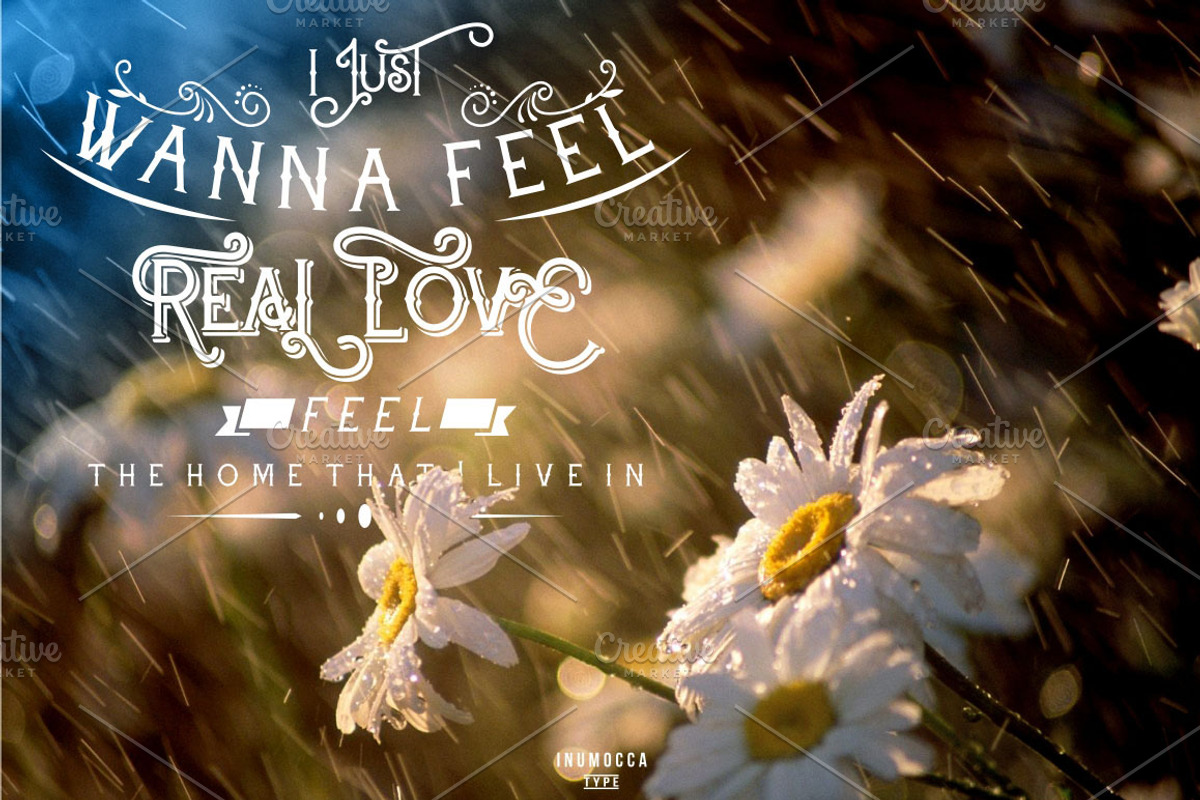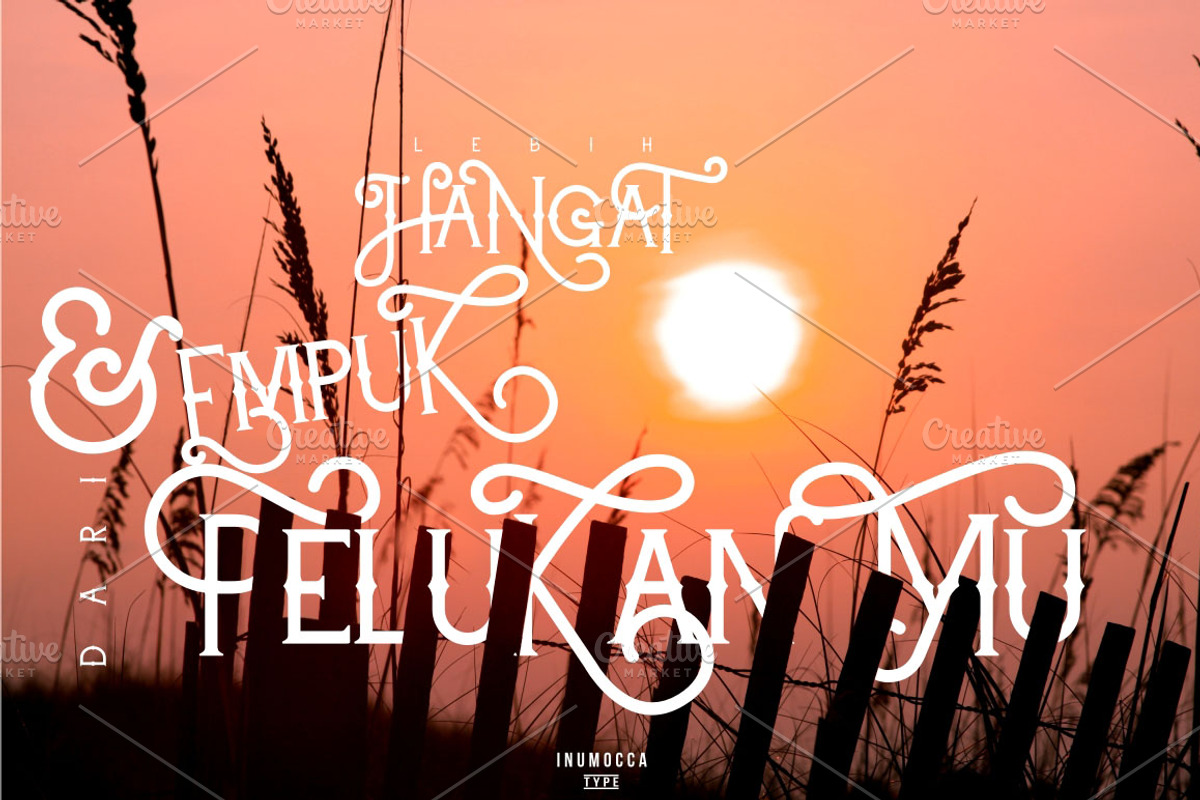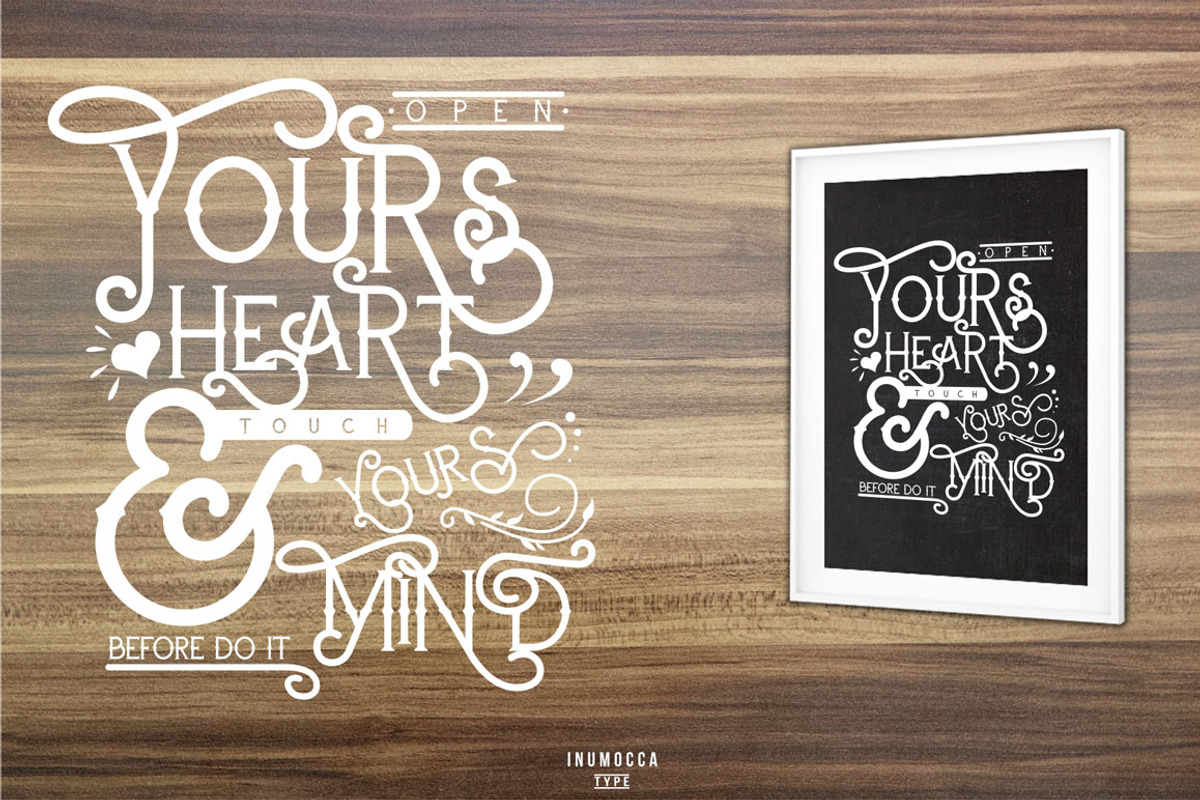
Carters
Carters its a modern classic typeface, really beautiful to typography, your brand, Logos, catalog , all about of fashions and arts.
Carters available with normal and slant mode, more 300 unique glyphs
carters normal and slant support with Opentype
Unique glyphs
with cool Contextual Alternates
Swash
Stylistic Sets
Multilingual characters
UPPERCASE
LowerCase
Numeric,
Symbol,
Punctuation characters